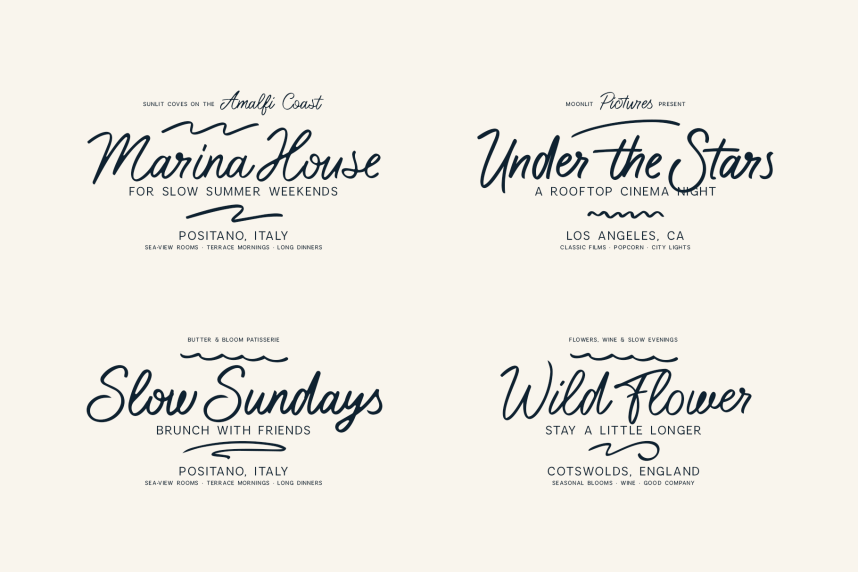
Typeful Handwritten Font, an expressive handwritten script font designed to bring natural movement, personality, and effortless charm to your typography.
Typeful combines fluid handwritten letterforms with an extensive collection of ligatures, contextual alternates, stylistic variations, swashes, and alternate capitals, giving you plenty of ways to create lettering that feels custom and naturally written rather than repetitive.
Typeful Handwritten Font